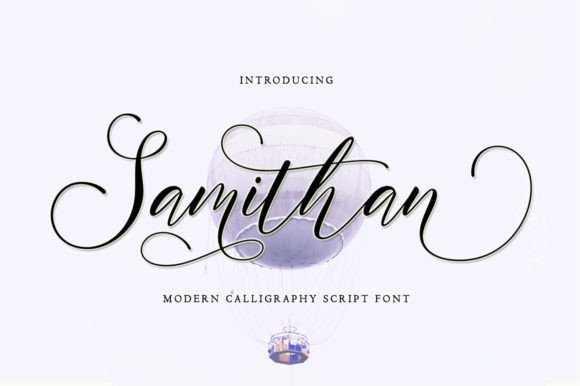
Introducing Samithan, the enchanting script font that will transform your digital creations into breathtaking works of art. Its alluring curves and rhythmic flow will add a touch of sophistication and elegance to your designs, making them captivate audiences and leave a lasting impression.
Step into a world of boundless creativity with Samithan, the perfect font for branding, wedding invitations, and other projects imbued with romance. Whether you're a seasoned designer or just starting, this font will effortlessly elevate your projects to new heights.
Unleash your imagination and let Samithan dance across your designs, from logos and labels to packaging designs. Its versatility knows no bounds, making it an indispensable tool for creating social media posts, Instagram designs, posters, wedding designs, and more.
With Samithan, you'll effortlessly craft designs that exude elegance and charm. Its flowing lines and delicate details will add a personal touch to your creations, evoking emotions and creating a lasting connection with your audience.
Join the creative revolution and embrace Samithan, the font that will ignite your passion for design. Let its beauty enhance your projects and leave an indelible mark on the hearts of those who encounter your creations.